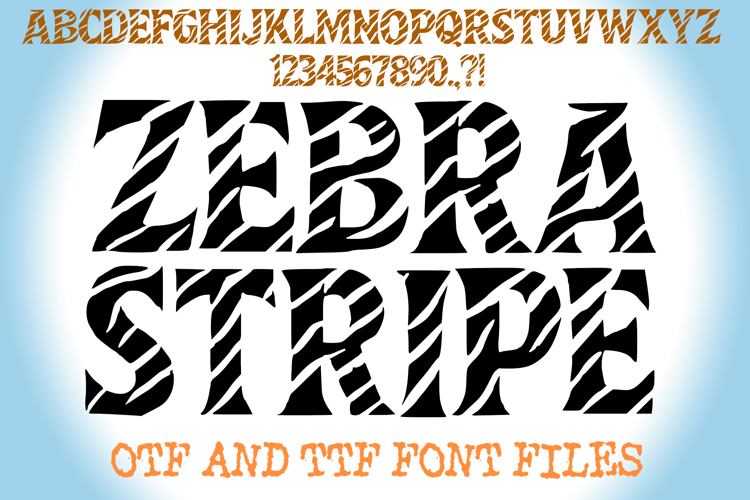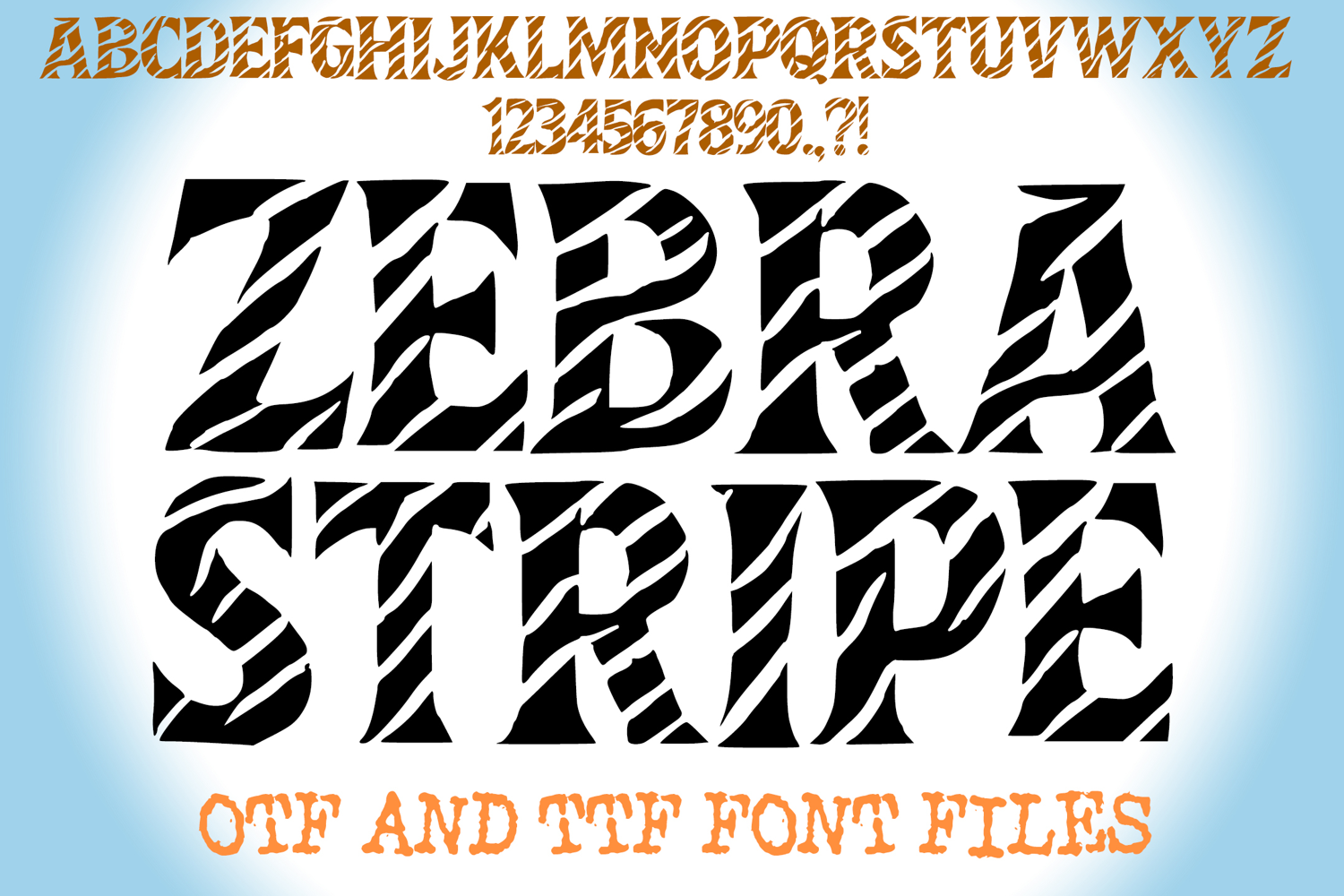
Zebra Stripe Print Alphabet Lettering ABC Text Font OTF
A unique stripy style font where you can create your own words and colour them to your vision!